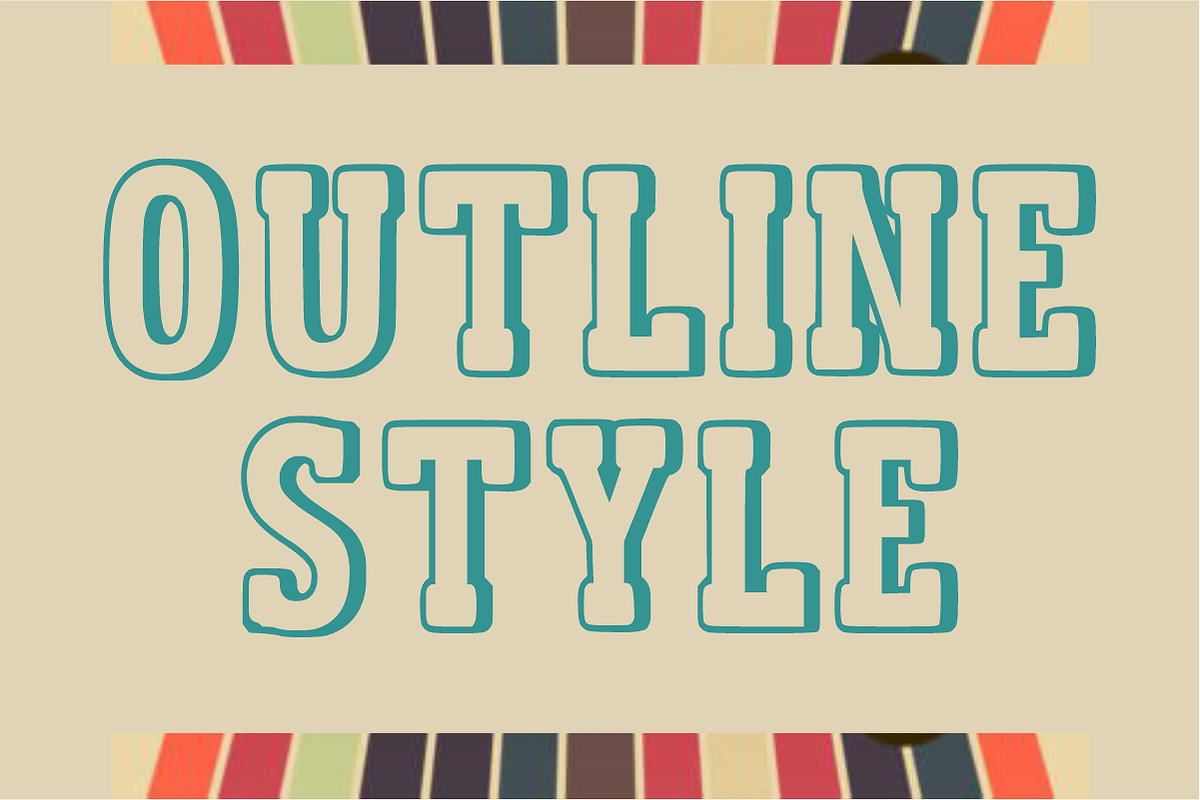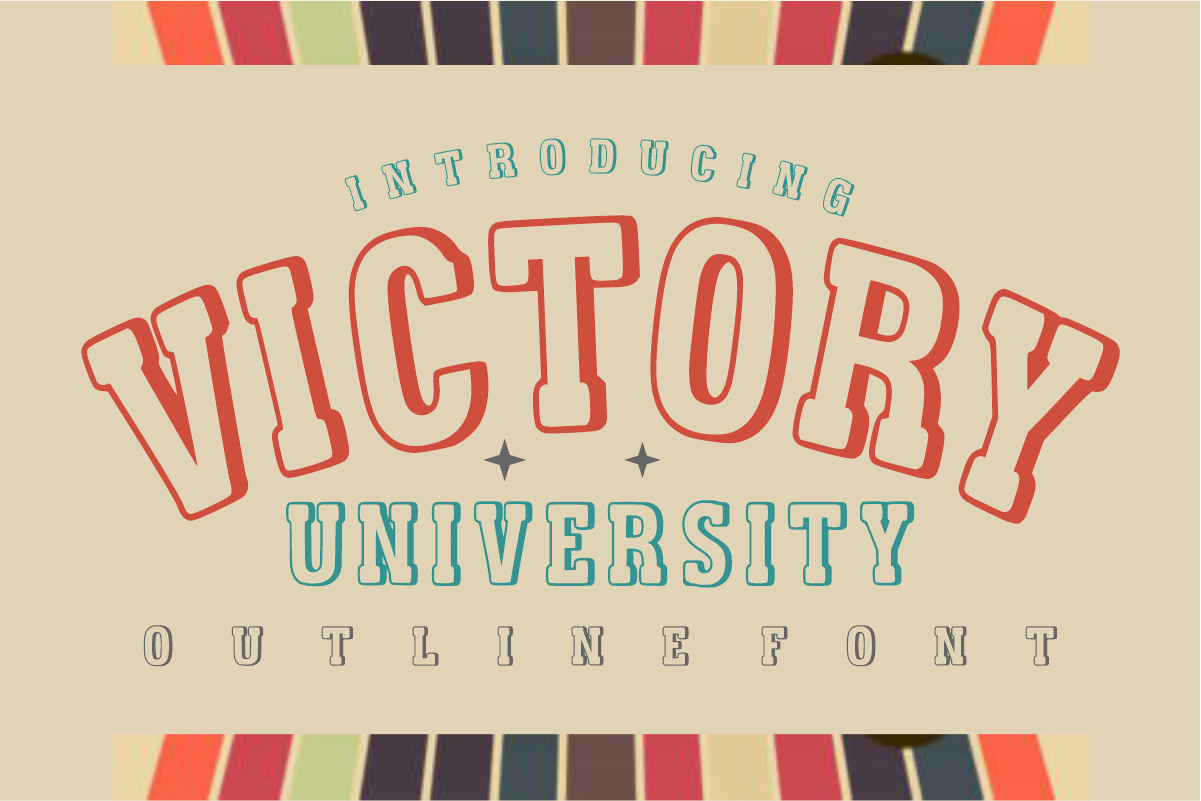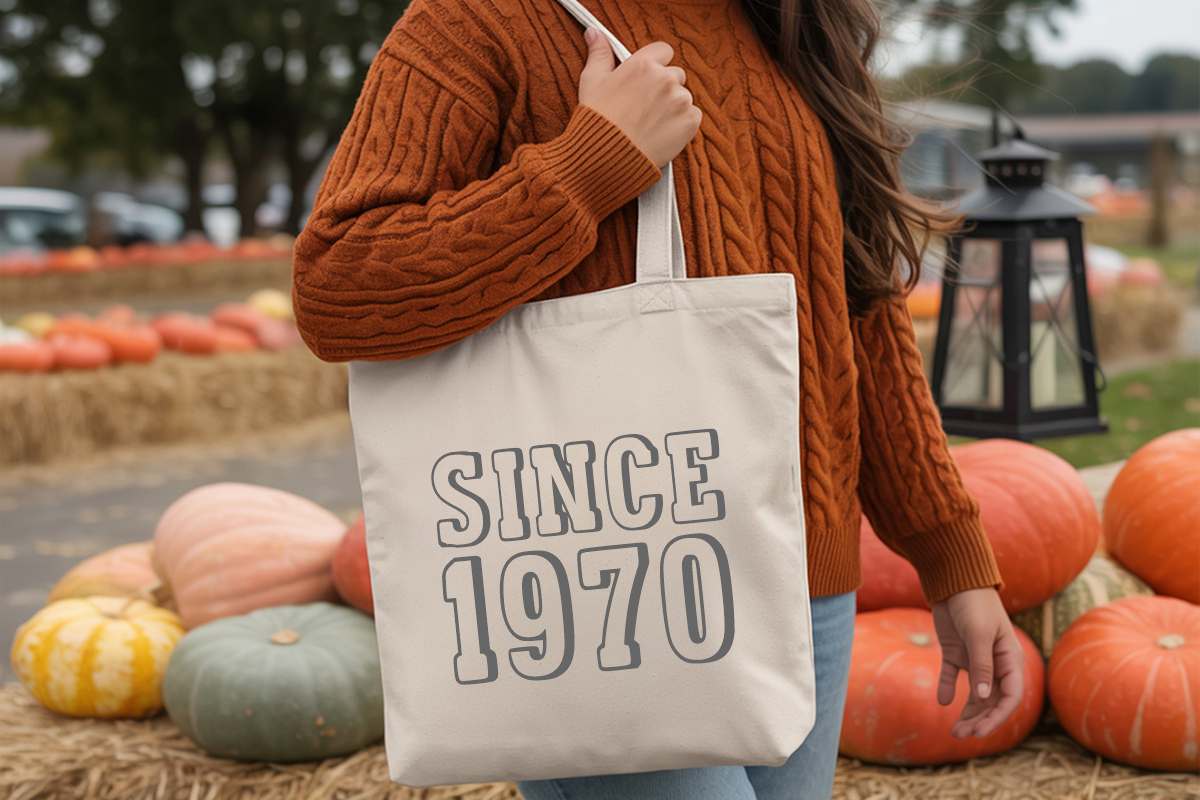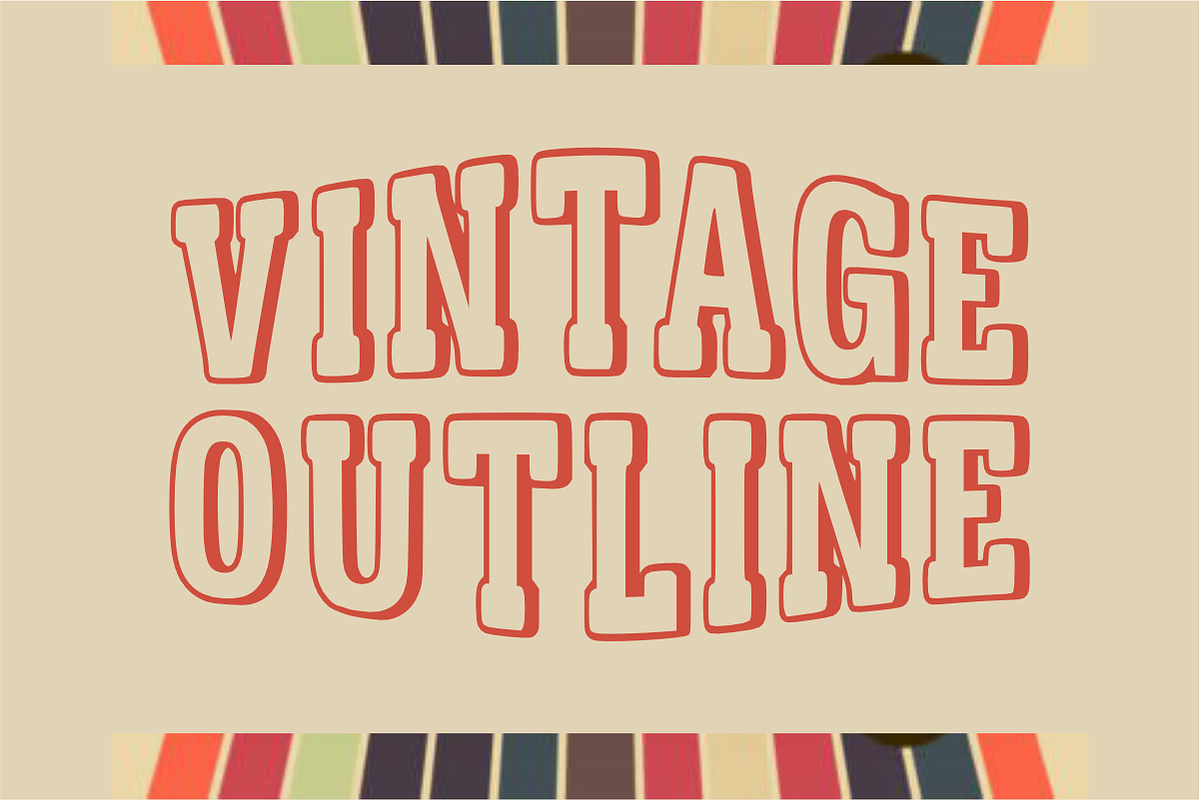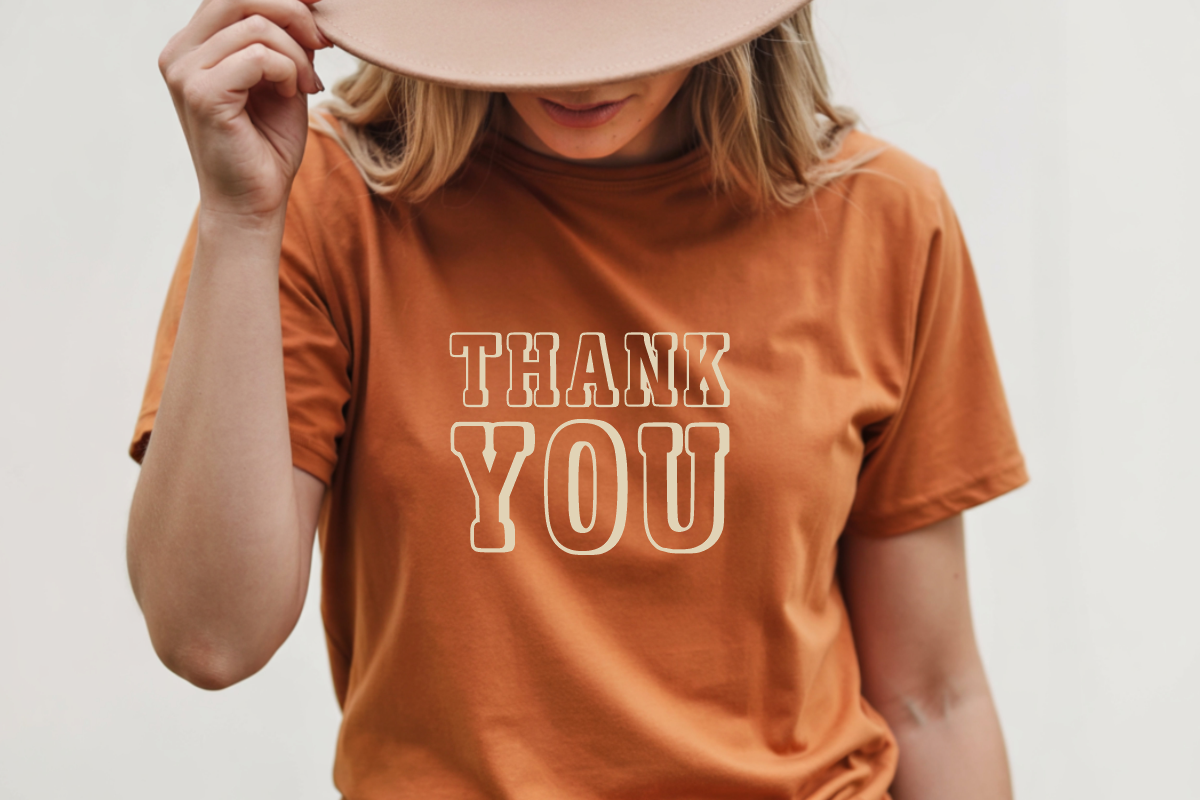
Victory University- Outline Font
🎓 Hey Team! Meet Victory University - The Ultimate Retro Outline Varsity Font! ⭐️
Ready to bring that classic campus spirit to your next design? Victory University is a premium outline display font that perfectly captures the vintage collegiate aesthetic with a fun, groovy twist! Featuring clean, open hollow lines and a timeless athletic block structure, this font delivers instant old-school charm and high-energy nostalgia.
Whether you're creating trendy streetwear, high-spirited campus merch, or retro lifestyle graphics, Victory University will make your headlines stand out with effortless style!
✨ What’s Packed in the Kit:
_ 🔠 _\Bold Uppercase Outline Letters (A-Z)\\* – Clean, hollow collegiate block characters.
_ 🔢 _\Matching Outline Numbers (0-9)\\* – Perfect for vintage team jerseys and milestone years.
_ 🔣 _\Simple Symbols & Punctuation\\* – Essential characters to easily finish your phrases.
🎯 Perfect For Your Next Best-Selling Project:
\* 👕 Retro T-Shirts, Hoodies & Vintage Streetwear Apparel
\* 🎒 College & Varsity Clothing / School Spirit Merchandise
\* 🏈 Sports Team Logos, League Branding & Tailgate Party Posters
\* 🎨 Clean SVG Cut Files for Cricut & Silhouette (Super easy to cut & weed!)
\* 🥤 Trendy Stickers, Tote Bags, High-Impact Headers, and Social Media Graphics